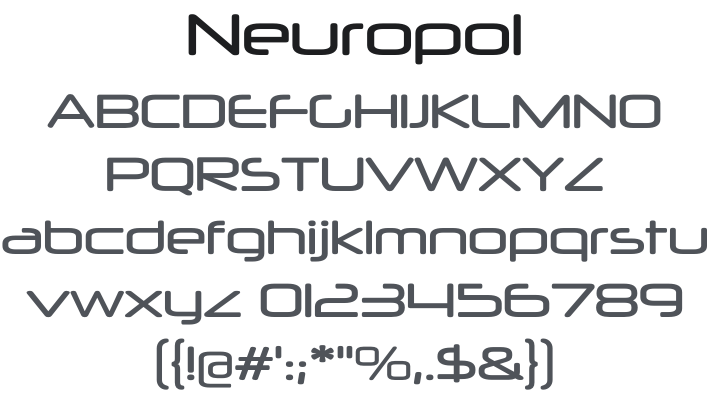
Neuropol Font
About Neuropol
Neuropol is a broad, sharply futuristic typeface created in 1996 — one of Ray Larabie's most iconic designs. Built on rounded-square superelliptical forms, its truncated horizontal strokes evoke laser beams and vector plotter traces, giving it a clean, sci-fi precision that defined an era of techno design. Perfect for sci-fi game titles, tech branding, futuristic interfaces, and anything channeling Y2K-era digital optimism.